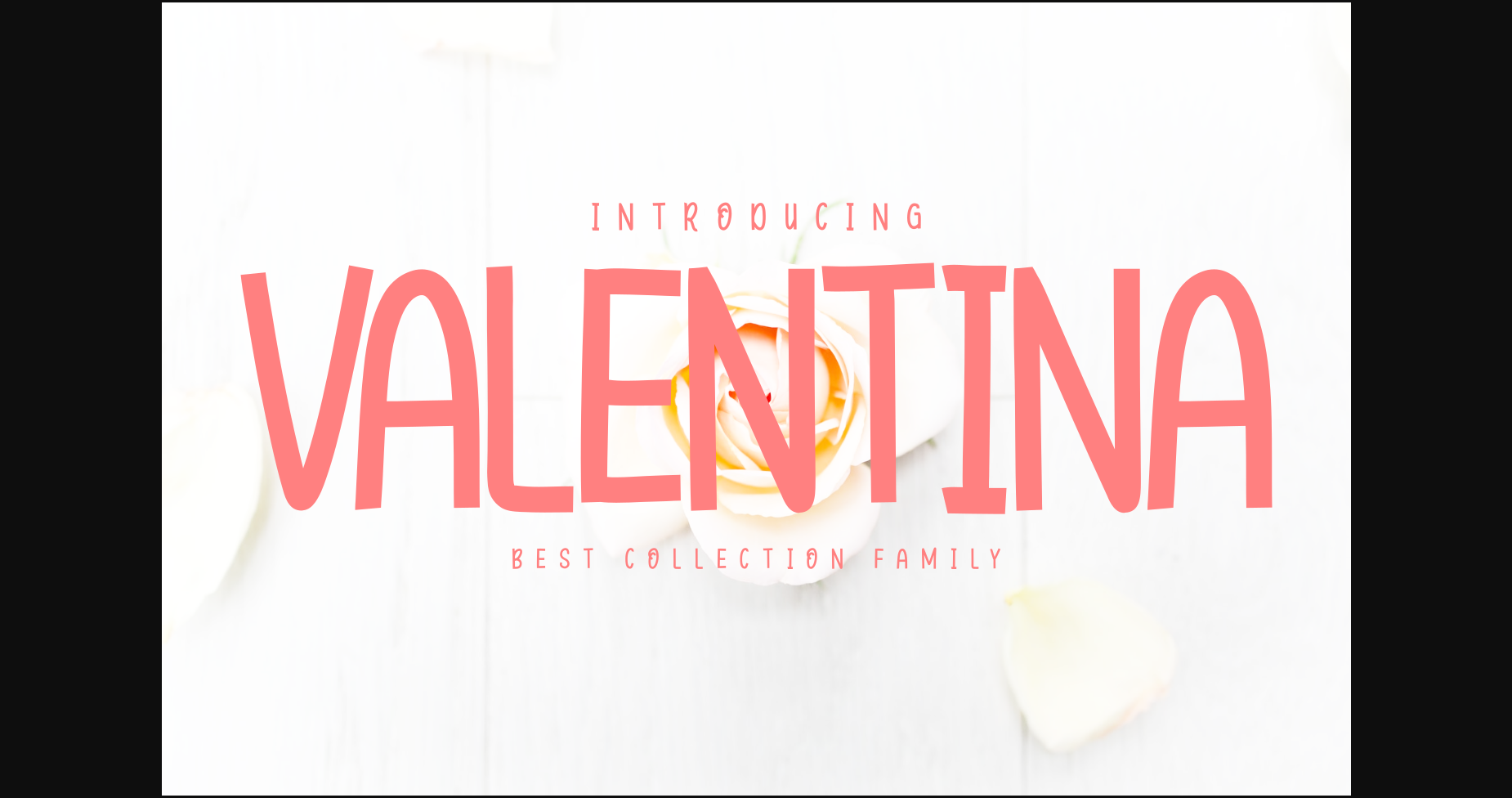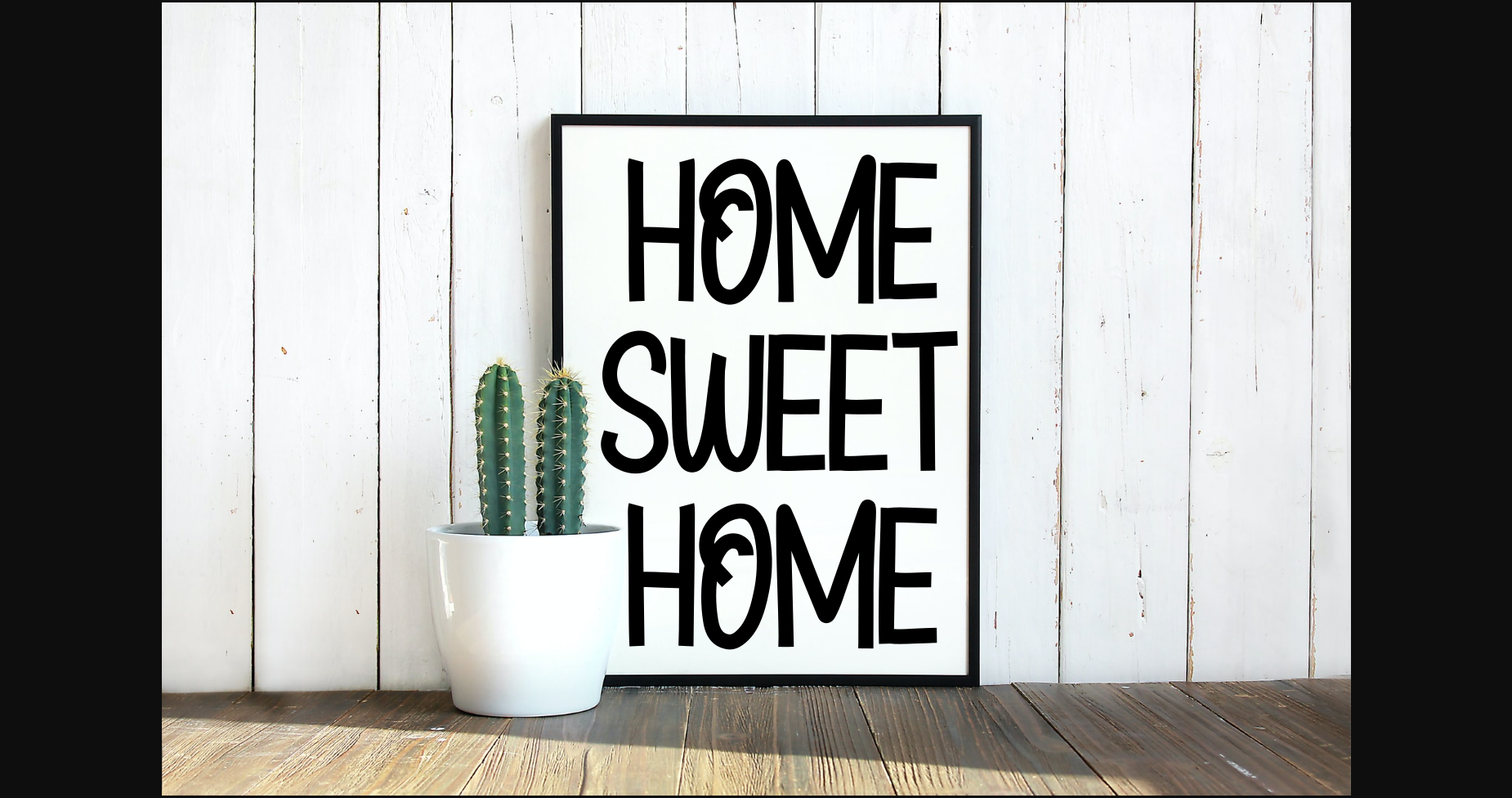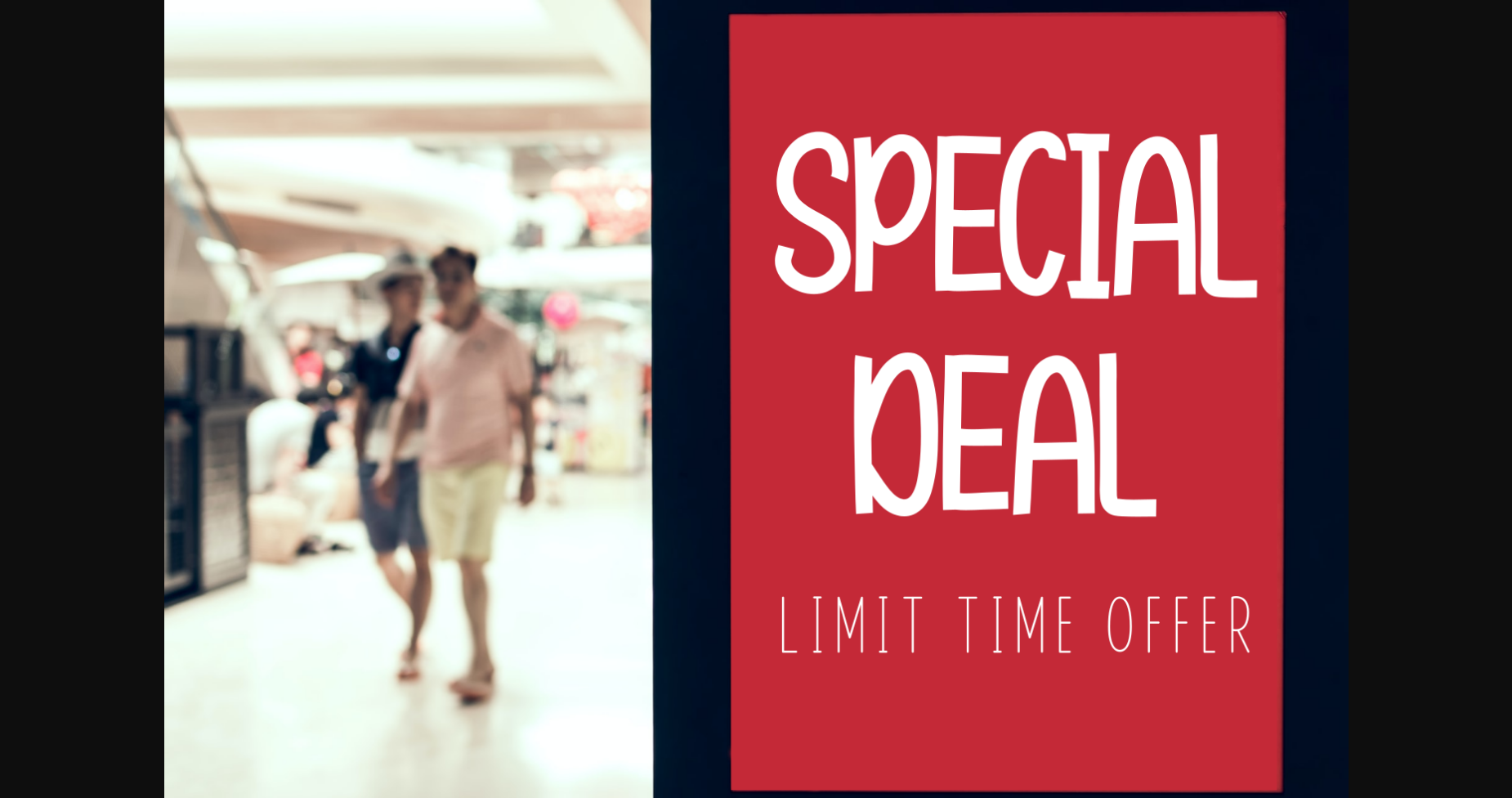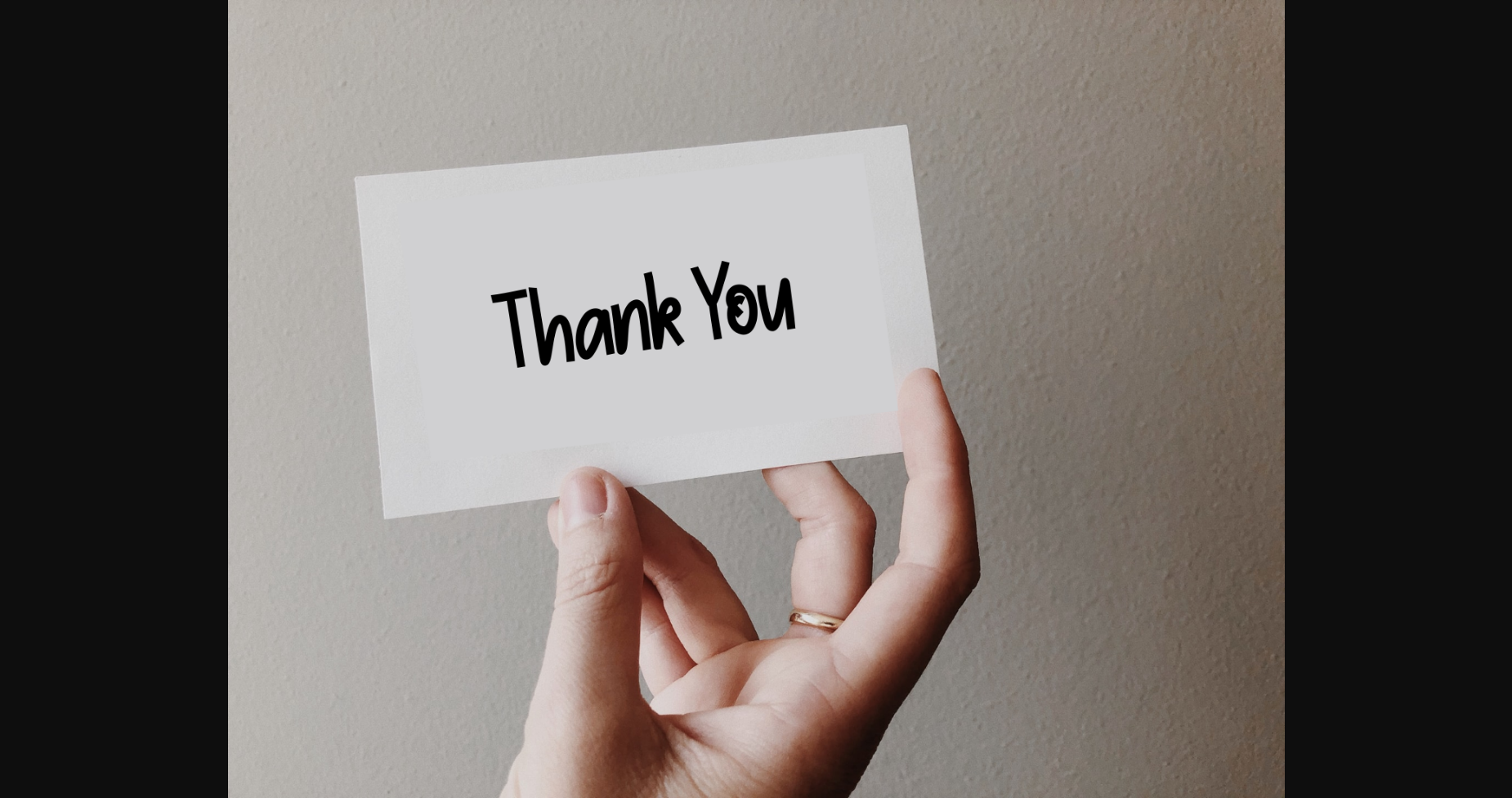
HomeSans Serif FontsValentina Font Sans Serif Fonts Valentina Font FacebookXPinterestWhatsApp 1 of 6 ... Valentina Font Poster 2... Valentina Font Poster 3... Valentina Font Poster 4... Valentina Font Poster 5... Valentina Font Poster 6... About Valentina Font Valentina is a minimal and neat sans serif font. It can easily be matched to an incredibly large set of projects, so add it to your creative ideas and notice how it makes them stand out! DOWNLOAD NOW People also explored Mela Pro Cabernet Delivery Note Farmhouse Font Ameliya Font Scribe Font Pineapple Font Crayon Box Font Terlie Font 290 0 TagsValentina Font Previous articleThomson FontNext articleRagnear Normal Version Font LEAVE A REPLY Cancel reply Comment: Please enter your comment! Name:* Please enter your name here Email:* You have entered an incorrect email address! Please enter your email address here Website: Save my name, email, and website in this browser for the next time I comment. Personal Use Free Quick Count Personal Use Free Read more about this font Bigstone Personal Use Free Read more about this font Earwig Factory Personal Use Free Read more about this font Retro Free Personal Use Free Read more about this font BLOG Using Fonts in Digital Marketing: Tips to Strengthen Your Brand Identity In the realm of digital marketing, every visual element plays a crucial role in shaping a brand's identity, and fonts are no exception. The... Exploring Font Trends How to Cut Any Font on Cricut: Convert a Font to SVG (Free) Transform Your Website: Elevate Your Typography with 7 Best Web Font Generators